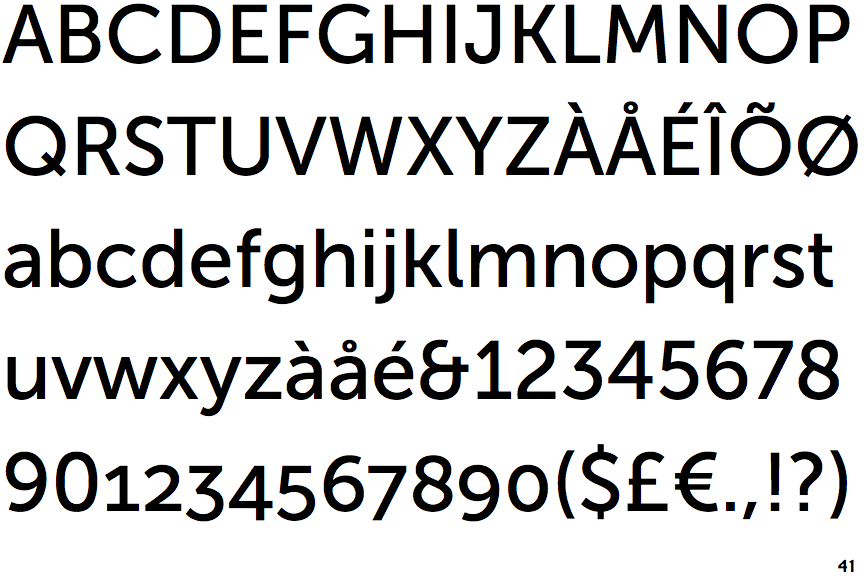
It is a sturdy, low contrast, geometric, highly legible sans serif. Web museo sans font download free. You can download it by clicking on the.
This Cute And Elegant Typeface Is Designed.
Download for free and install for your website or photoshop. $89.00 museo sans font family was designed by jos buivenga and published by exljbris. It is a sturdy, low contrast, geometric, highly legible sans serif typeface very well.
It Is A Sturdy, Low Contrast, Geometric, Highly Legible Sans Serif Typeface Very Well Suited For Any Display And.
The Museo Sans 900 Font Was Designed By Jos Buivenga.